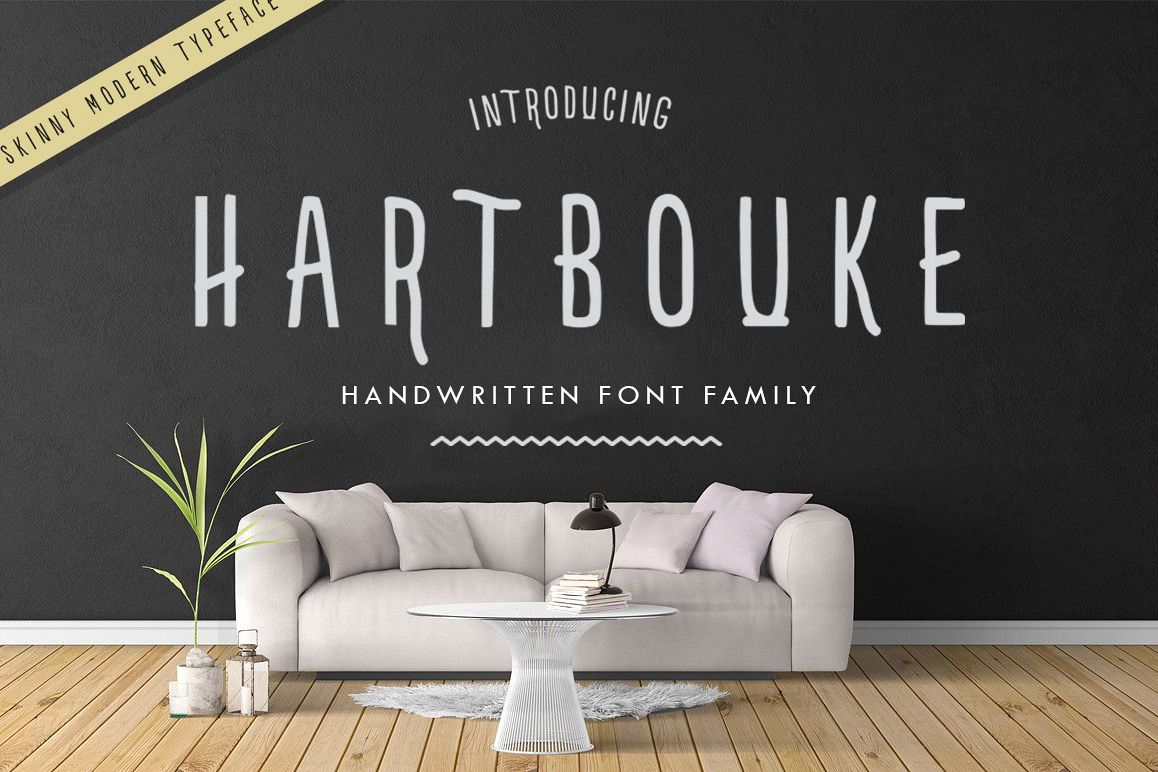
Introducing Hartbouke San Serif is a simple sans serif drawn by hand is inspired by simple things. This font is made with modern handdrawn, with letters that suit your needs.
Hartbouke a beautiful for logotype, packaging, cookies quotes, watercolour, outdoors, website header, fashion design, poster, clothing apparel, quotes and will add a beautiful touch of handmade love to your projects- use it for label designs, headlines, logotypes, signage, posters, greeting cards, letterhead , logos and more.